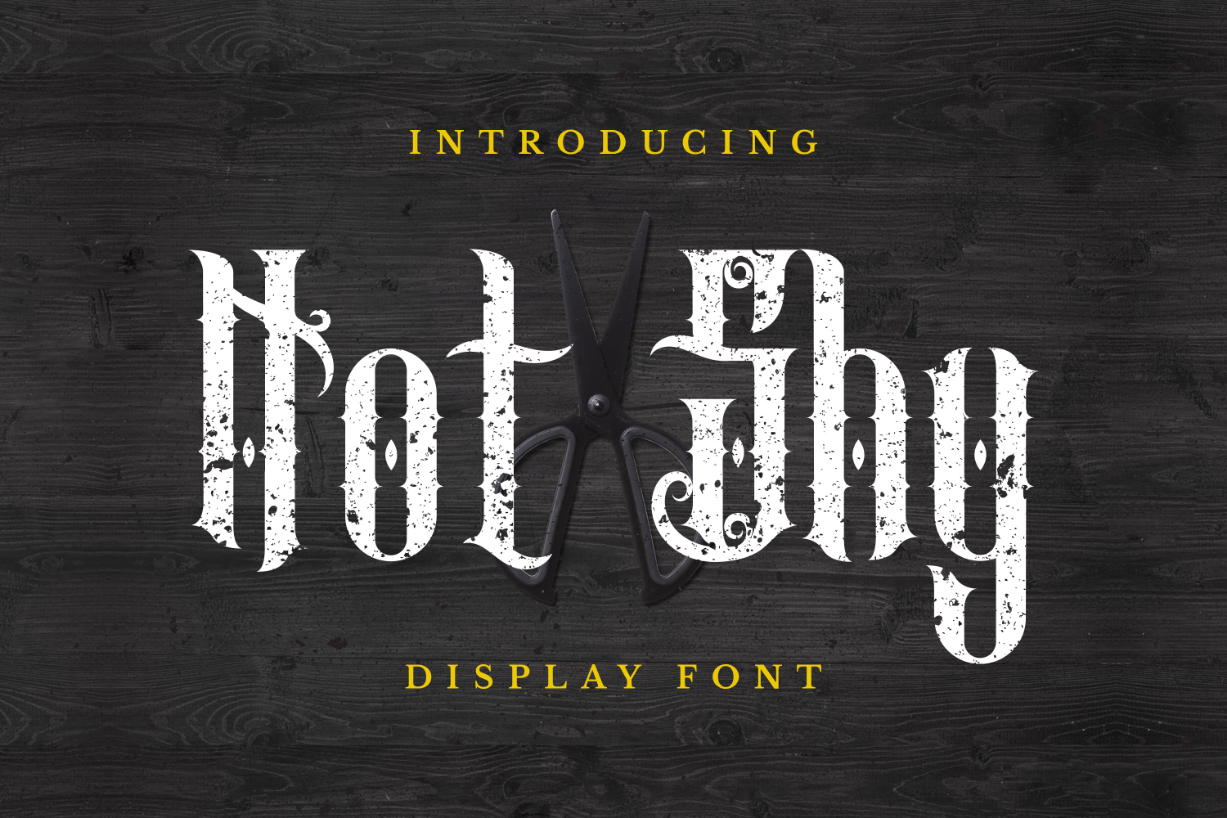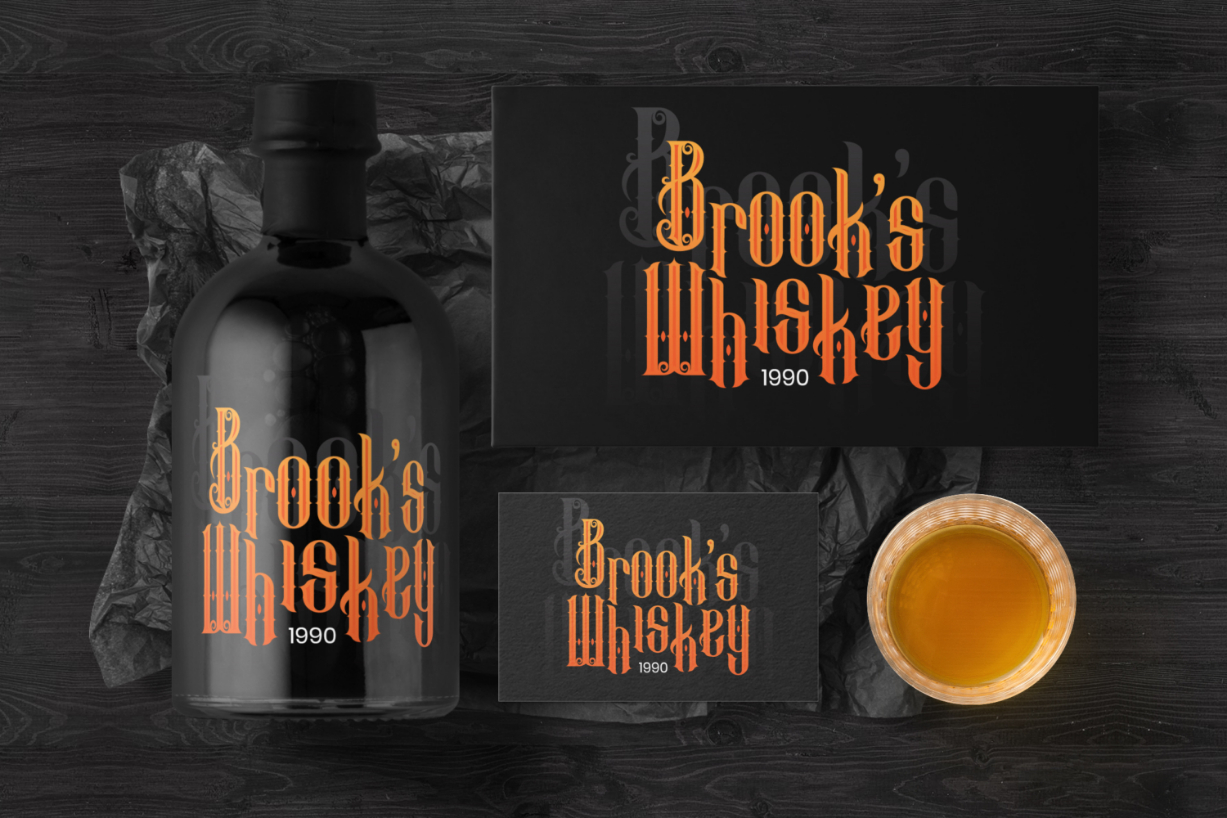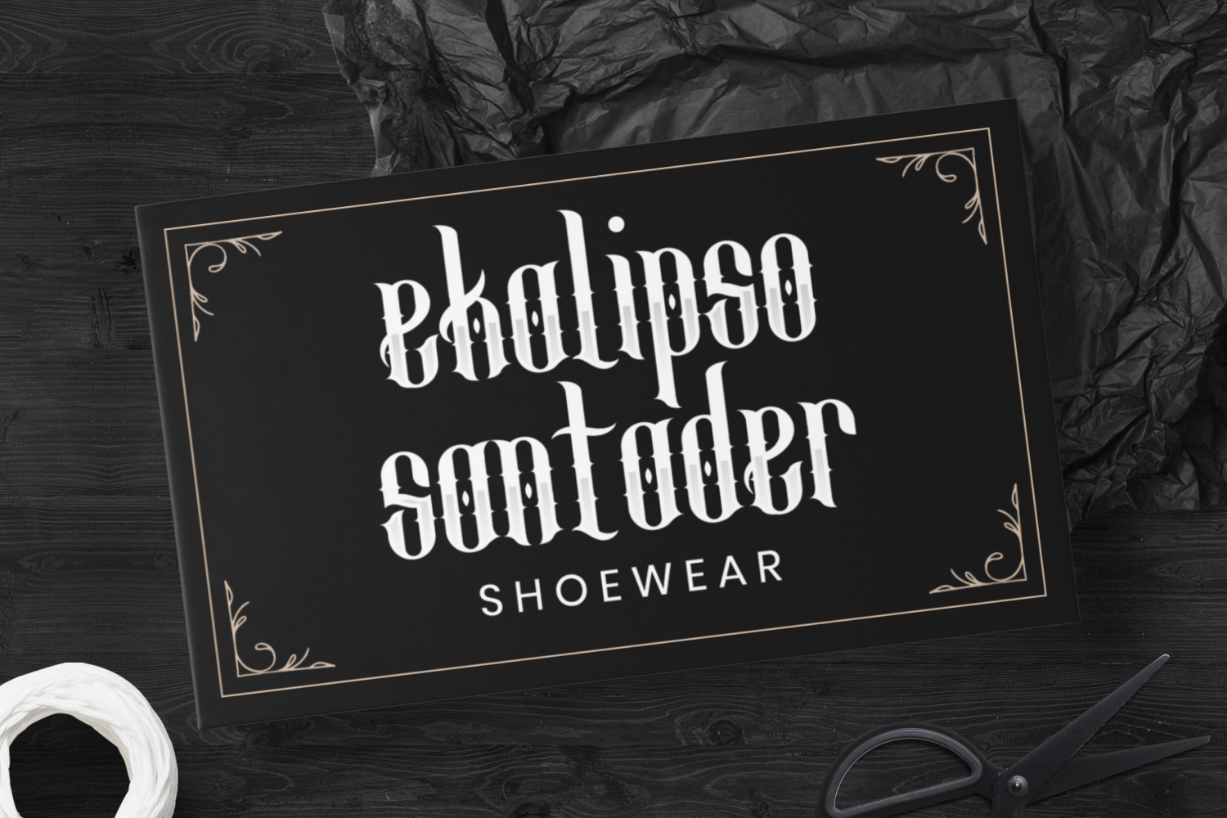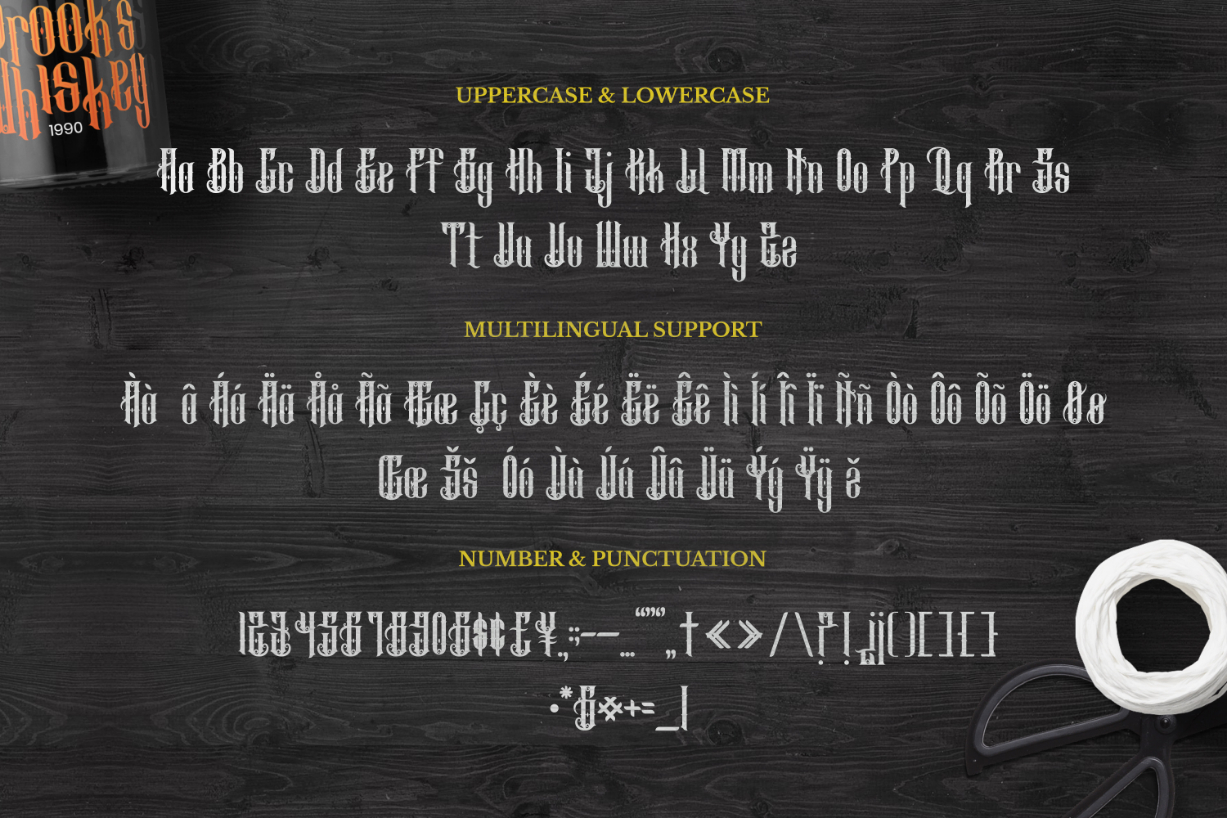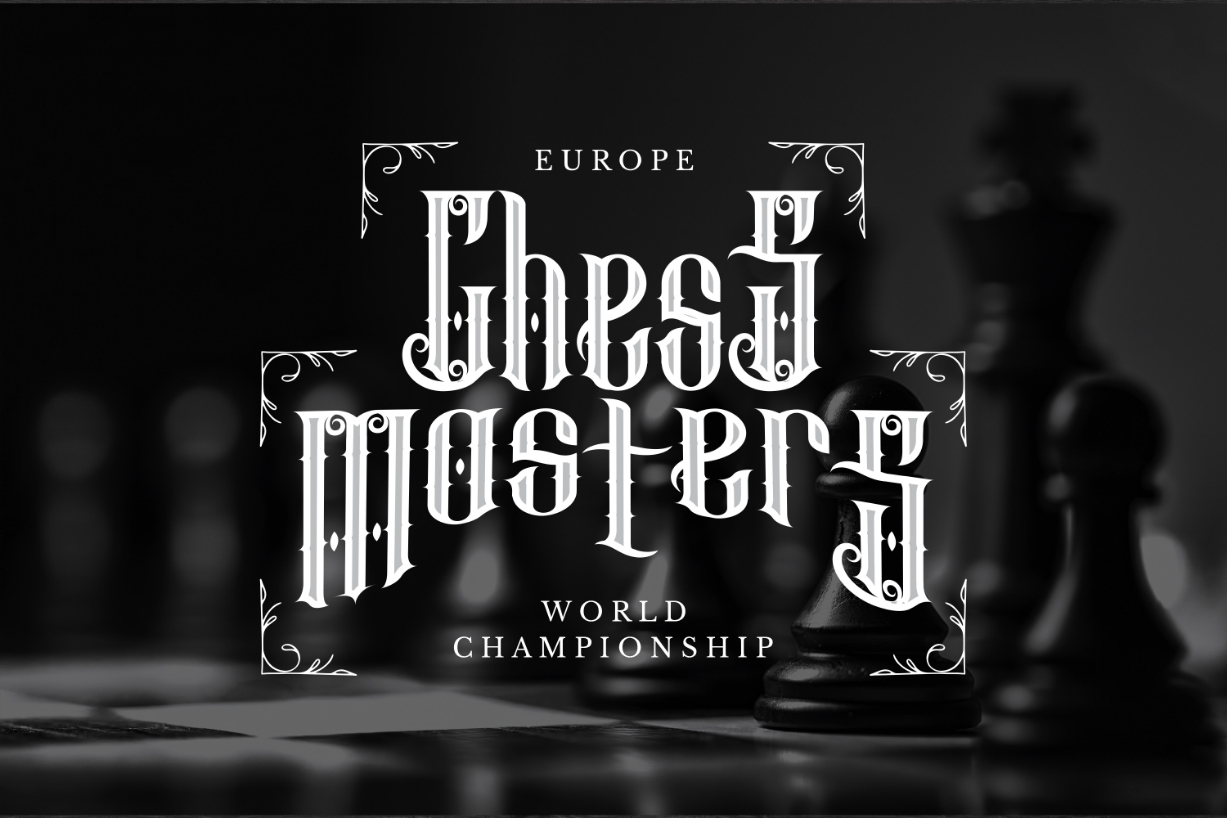
About Not Shy Font
Not Shy is a gothic styled and distinct blackletter font. It looks incredibly well on labels, branding, letters or invitations. Add it confidently to your favorite creations and let yourself be amazed by the outcome generated.